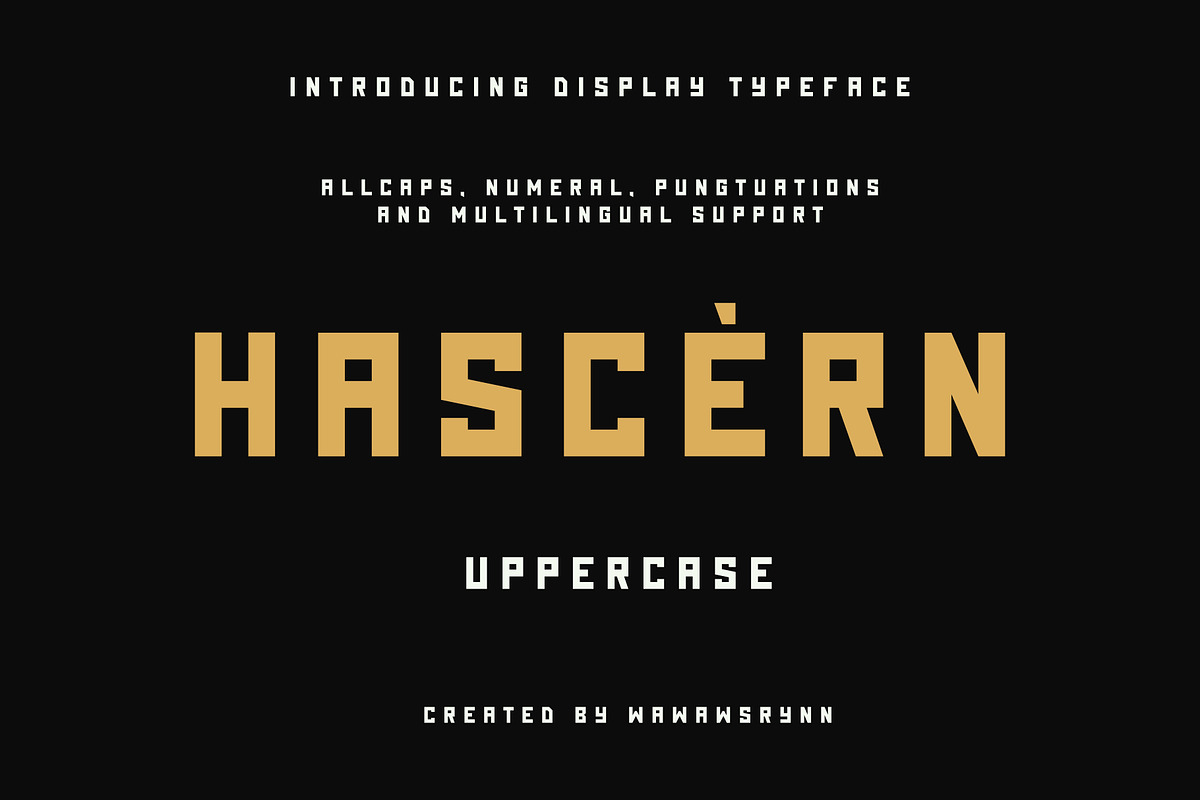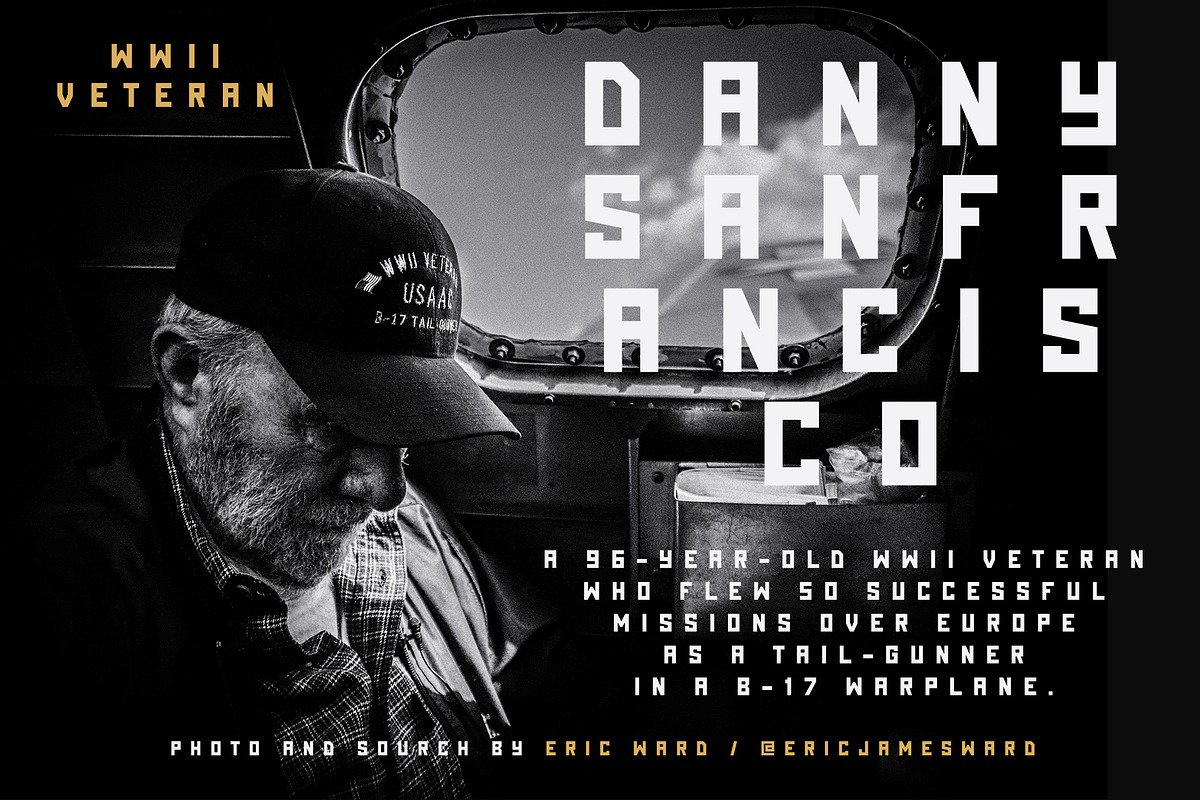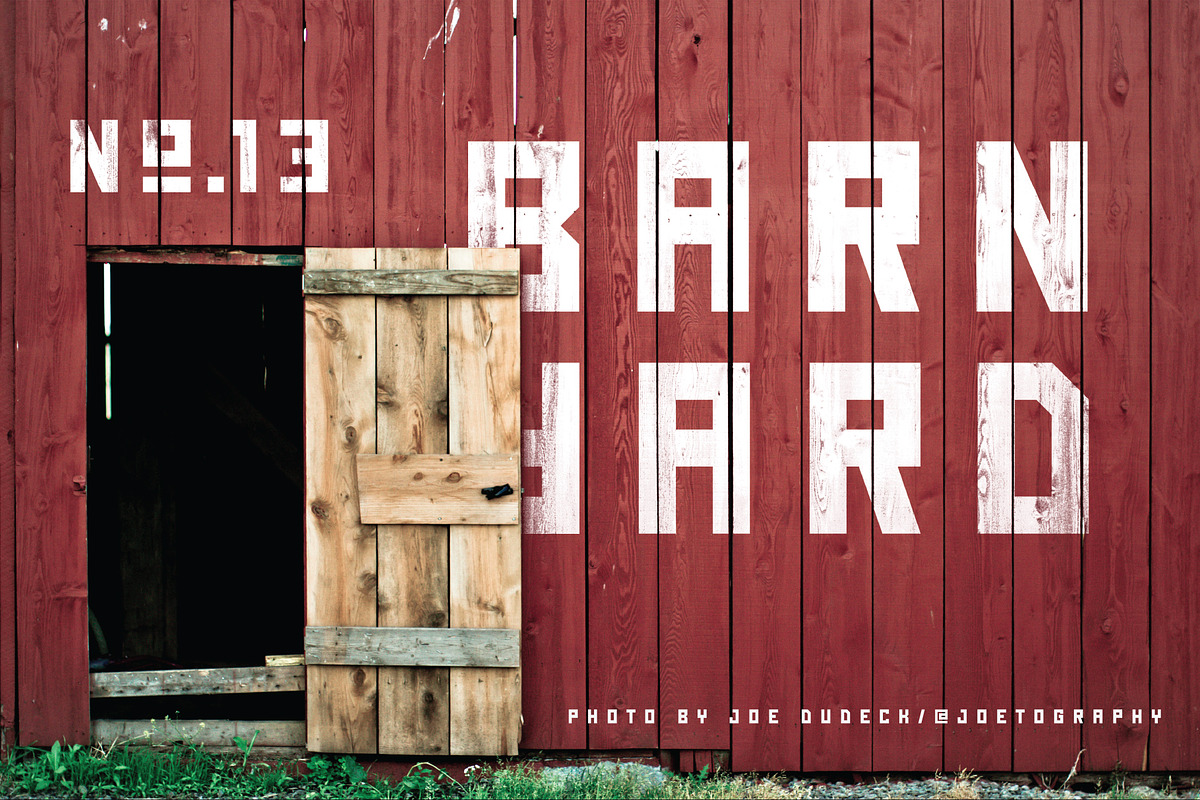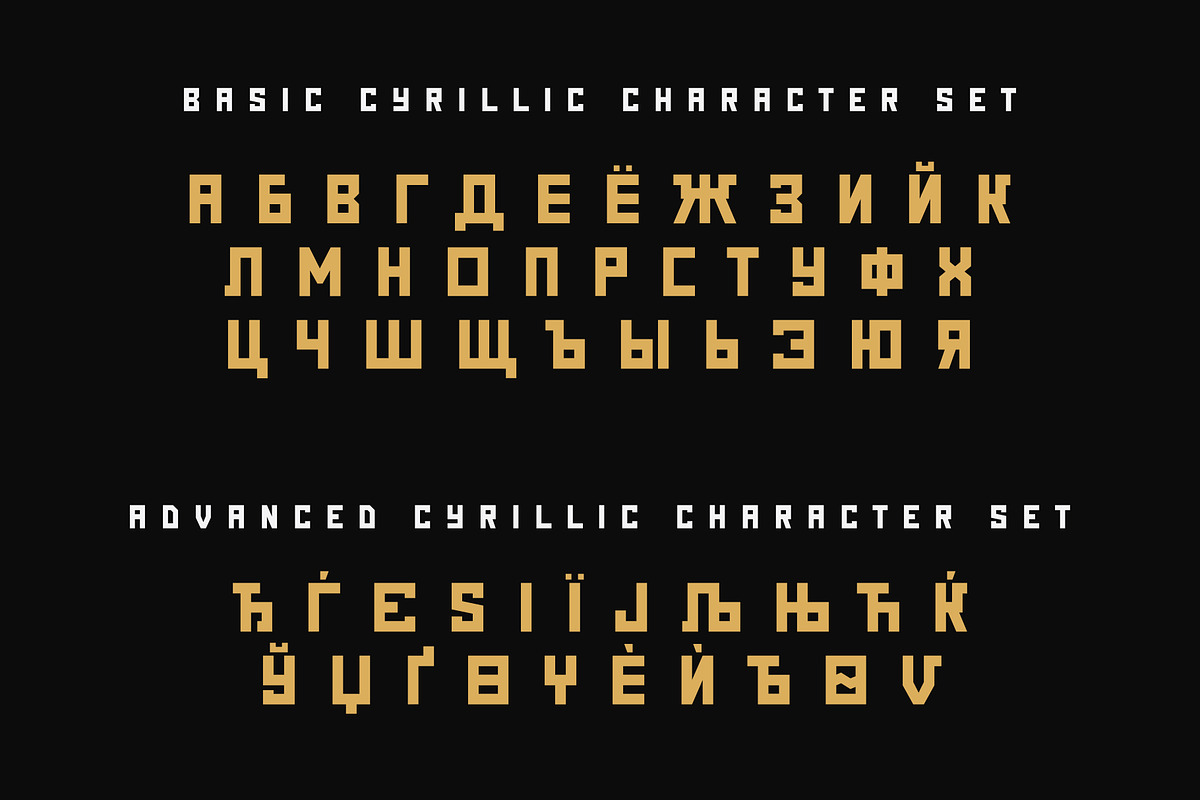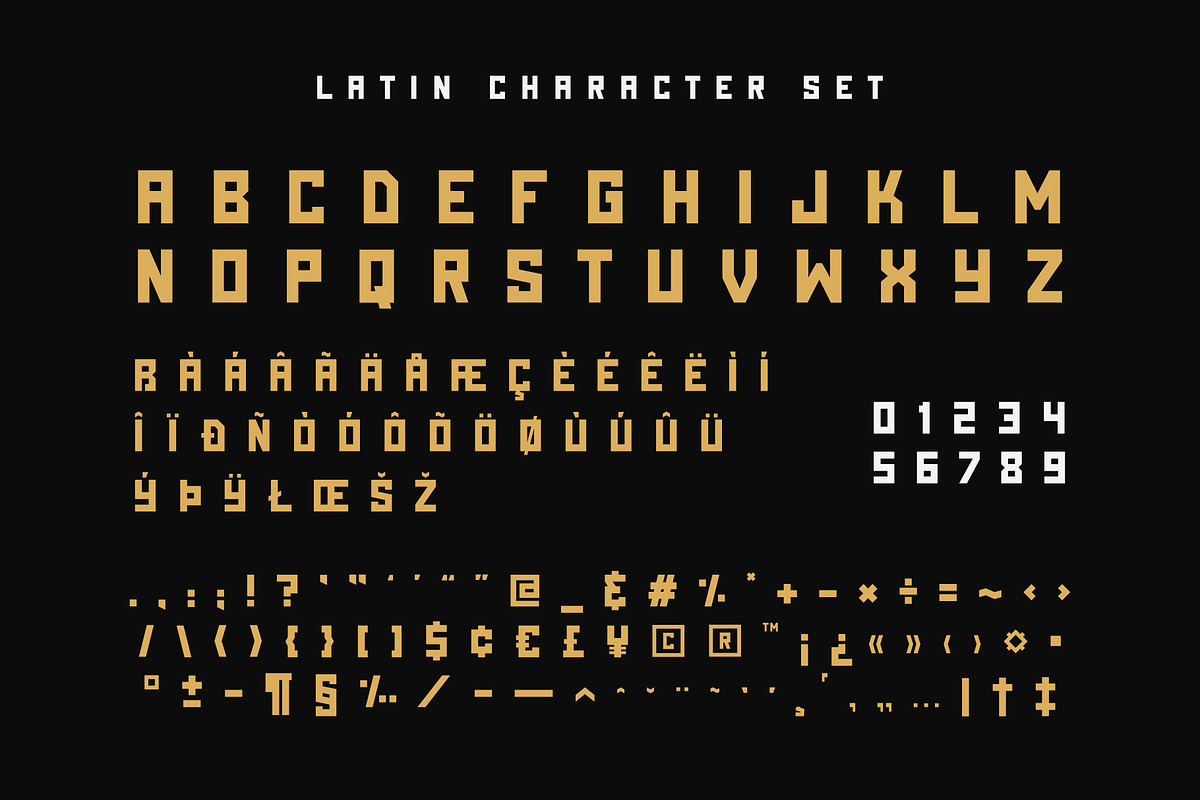
HASCERN
HASCERN is a bold square font I made. strong character, suitable for making all displays or titles. It works for creative project as logo design, badge, magazine, sign painting, packaging, headline and poster.
Font Support added basic latin character, advanced latin character, basic Cyrillic character and Advanced Cyrillic.